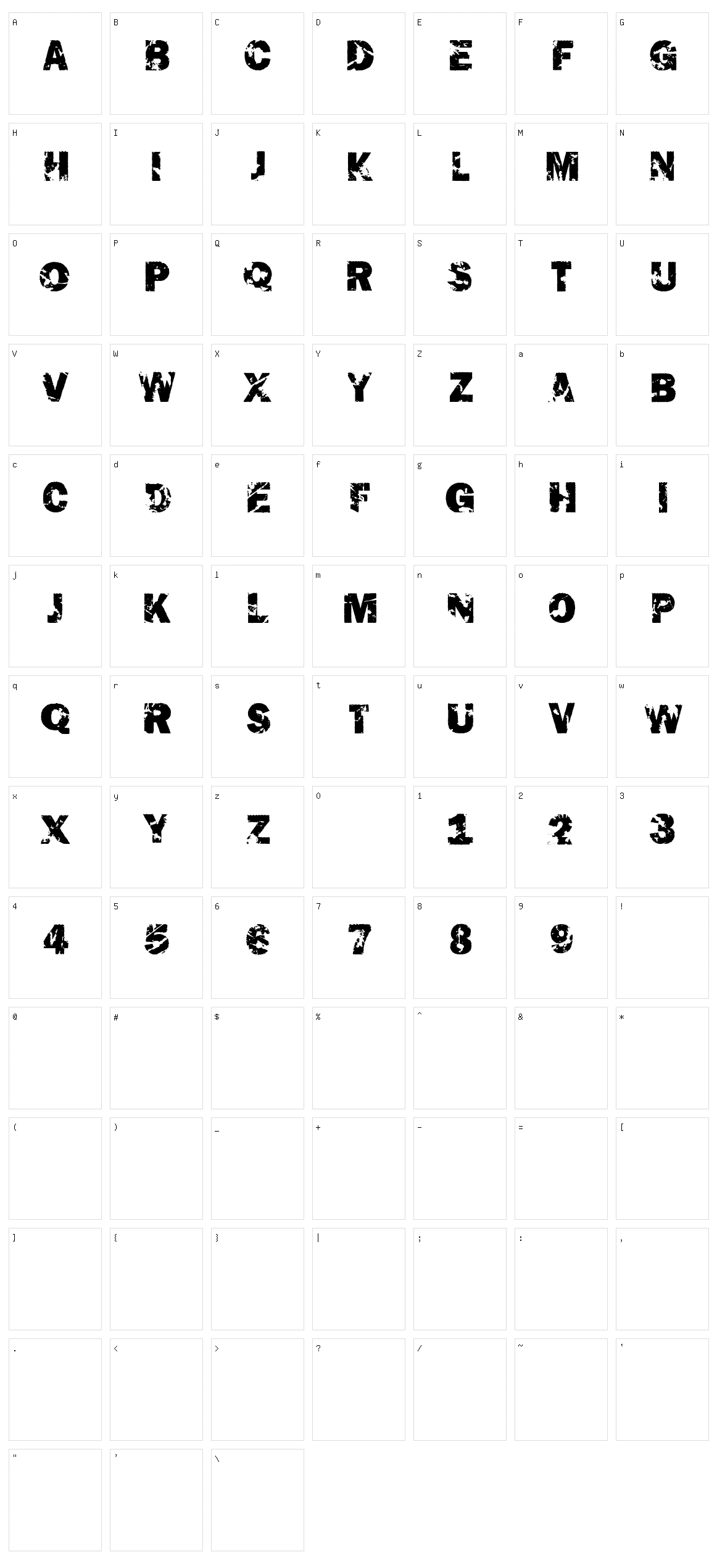
The free font The End Font is carefully designed by Robert Friedrich, showcasing a thoughtful balance of creativity and usability and falls under the Destroy font style. When you download the ZIP file, it contains only 184.42 KB of font files, making it lightweight and quick to download. Please review the license details below to understand permitted usage and distribution rights. If license information is not available, we recommend using this font for personal projects only or contacting the author directly for commercial usage permissions.